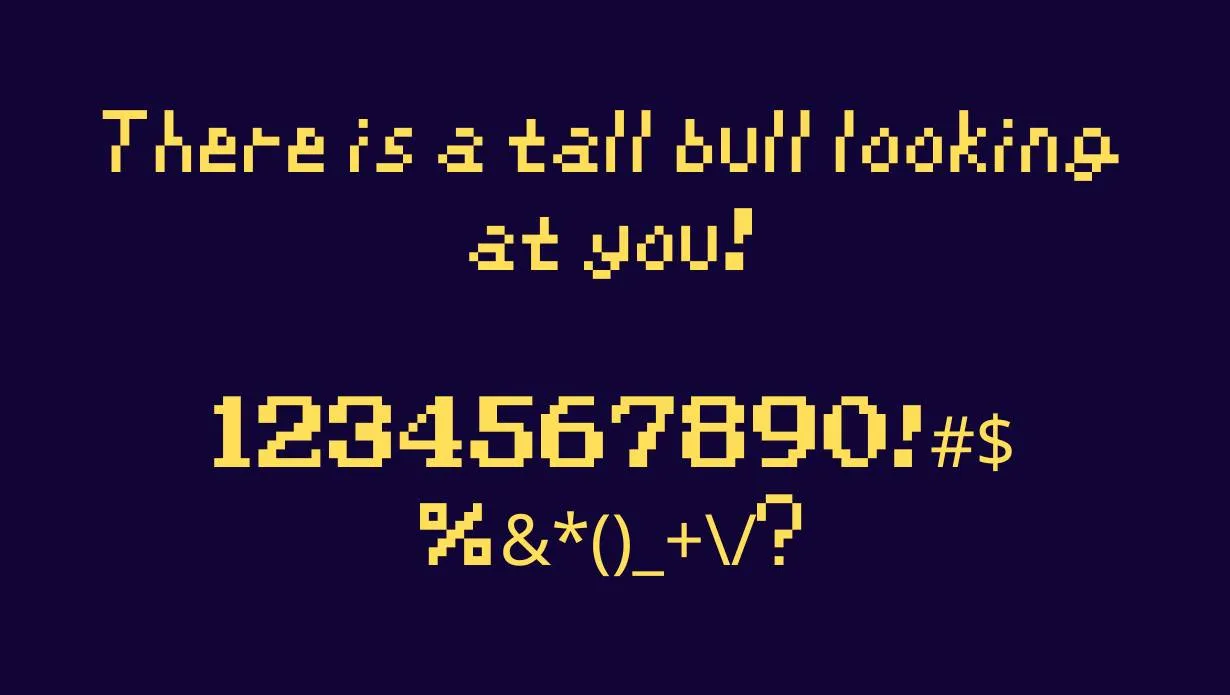
Kirby’s Adventure Regular font is like a friend from a fun and playful video game. The letters look like they are having a good time, making your words feel happy. It’s great for creative projects, like making cards or writing a friendly letter. Kirby’s Adventure Regular font brings a smile to your words, making them enjoyable to read.
Using this font is like adding a touch of playfulness to your words. It’s like telling a story with a happy ending or making a birthday card for a friend. Kirby’s Adventure Regular font is like adding sprinkles to your words, making them feel extra special and delightful.